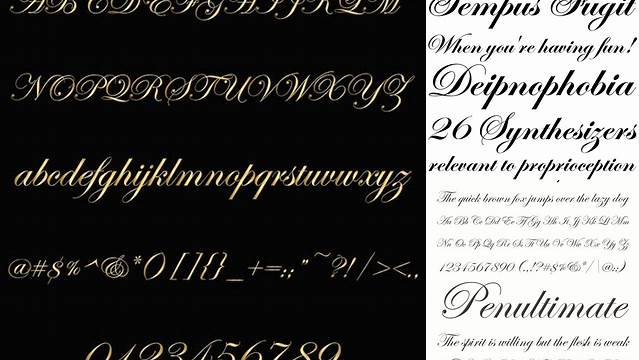
Hey there, font enthusiasts! Ever stumbled upon a font that just screams class, sophistication, and a touch of vintage charm? Well, let me introduce you to the ITC Edwardian Script Std font – a beautiful script font that's been gracing designs for ages. And the best part? You can snag an ITC Edwardian Script Std font free download and infuse your projects with its timeless elegance. In this comprehensive guide, we'll dive deep into everything you need to know about this font, from its history and design characteristics to where you can find that coveted free download. Ready to elevate your design game with a touch of Edwardian flair? Let's get started!
1. Unveiling the Allure of the ITC Edwardian Script Std Font
Alright, guys, let's kick things off by exploring what makes the ITC Edwardian Script Std font so darn special. This font isn't just any script; it's a carefully crafted typeface that evokes the grace and style of the Edwardian era. Imagine flowing, elegant strokes, a touch of flourish, and an overall sense of refinement – that's the essence of this font. The ITC Edwardian Script Std font stands out with its distinctive character, making it perfect for projects where you want to convey a sense of luxury, nostalgia, or classic beauty. Its popularity stems from its versatility; it works like a charm in various design contexts. From wedding invitations to branding materials, logos, and even website headers, this font adds a touch of sophistication that's hard to ignore. The design itself is a testament to the craftsmanship of its creators, capturing the spirit of a bygone era while remaining relevant in today's design landscape. The font's flowing letterforms create a visual harmony that draws the eye and leaves a lasting impression. It's the type of font that elevates a simple design into something truly memorable. The ITC Edwardian Script Std font is more than just a collection of characters; it's a statement, a way to communicate elegance and style. Whether you're a seasoned designer or just starting out, understanding the nuances of this font can significantly enhance your creative endeavors, making your projects stand out from the crowd and leaving a lasting impression on your audience. It's a timeless choice that continues to captivate designers and audiences alike, solidifying its place as a design classic.
2. Diving into the Design: Characteristics and Features
Okay, let's get into the nitty-gritty details, shall we? The ITC Edwardian Script Std font boasts several key design characteristics that make it so unique and appealing. Firstly, you'll notice the elegant, flowing strokes that give it a handwritten feel. This adds a personal touch, making your designs feel more inviting and authentic. The font's curves are graceful, and the letters connect in a way that creates a seamless visual flow. This is perfect for creating a sense of continuity and visual harmony. Furthermore, the ITC Edwardian Script Std font often features a variety of ligatures, which are special characters that combine two or more letters into a single glyph. Ligatures enhance the aesthetic appeal and add a touch of sophistication, providing a more authentic calligraphic appearance. The font also typically includes a range of weights and styles, from regular to bold, allowing you to experiment with different visual effects. This versatility means you can adapt the font to suit various design needs, whether you want a subtle touch or a bolder statement. Another important feature of the ITC Edwardian Script Std font is its readability. While script fonts can sometimes be difficult to read, this font is designed to maintain clarity even at smaller sizes. This makes it ideal for a wide range of applications, from headlines to body text. The carefully considered design ensures that the text remains legible, allowing your message to shine through. From the sweeping strokes to the use of ligatures, every aspect of the ITC Edwardian Script Std font is meticulously crafted to deliver an elegant and memorable aesthetic. These characteristics collectively contribute to the font's timeless appeal and make it a favorite among designers seeking a touch of classic beauty in their projects. Understanding these features will help you use the font effectively and appreciate its unique qualities.
3. The History and Origins of ITC Edwardian Script Std
Let's take a trip down memory lane and explore the ITC Edwardian Script Std font's historical roots. This font, as the name suggests, draws inspiration from the Edwardian era (early 20th century), a period known for its elegance, refinement, and artistic innovation. The font's design reflects the calligraphy styles popular during that time, with a focus on graceful, flowing letterforms that exude sophistication. The ITC Edwardian Script Std font was created by a renowned type foundry, International Typeface Corporation (ITC), and designed by the talented Edward Benguiat. Benguiat's mastery of typography is evident in the font's meticulous details and balanced aesthetics. The font's creation was a nod to classic calligraphy styles, which offered a modern interpretation. The aim was to create a typeface that embodies the spirit of the Edwardian era while remaining adaptable for contemporary design needs. The font quickly gained popularity among designers seeking to add a touch of vintage charm to their projects. Its elegant design and versatility made it a go-to choice for invitations, branding, and various other applications. The ITC Edwardian Script Std font successfully captures the aesthetic of a bygone era, and its continued use in contemporary design testifies to its timeless appeal. The history of this font reflects a desire to connect with the past while embracing the possibilities of the future, and as such, it remains relevant and appreciated by designers and enthusiasts. This historical context adds an extra layer of appreciation for the font, enabling users to understand the care and effort put into its creation. So, the next time you see this font, remember its rich history and the design era that inspired it.
4. Why Designers Love the ITC Edwardian Script Std Font
So, why do designers rave about the ITC Edwardian Script Std font? Well, the reasons are as varied as the designs it graces. First and foremost, it's the sheer elegance and sophistication that this font brings to any project. It elevates the aesthetic instantly, adding a touch of class that's hard to replicate with other typefaces. Its flowing script is incredibly versatile, fitting seamlessly into a wide range of design applications, from formal invitations to website headers and logo designs. Designers value its ability to convey different moods, from classic and romantic to vintage and refined. The font is also appreciated for its versatility. Its various weights and styles allow designers to customize the look and feel of their projects. This flexibility is important when matching the typeface to the specific project and brand guidelines. Furthermore, the ITC Edwardian Script Std font is easy to read. Unlike some elaborate script fonts, this font has a certain clarity that is still legible at various sizes, making it perfect for both headlines and body text. The font offers numerous options for use. The availability of ligatures and alternate characters allows designers to add a special touch, such as fine detail. The font stands out as it makes projects stand out. It also provides a sense of continuity, helping the overall visual harmony of the design. The ITC Edwardian Script Std font has become a staple in any designer's toolbox. It has a great history, and its design characteristics make it one of the most wanted fonts available.
5. Perfect Projects: Where to Use the ITC Edwardian Script Std Font
Now, let's talk about where this stunning font really shines. The ITC Edwardian Script Std font is a versatile beauty, ideal for a wide array of projects that call for a touch of elegance and sophistication. Think wedding invitations, where its flowing script adds a romantic and timeless vibe. It's perfect for setting the tone for a special day, providing a feeling of tradition and luxury. The font also excels in branding and logo design. Businesses looking to project a classic or vintage image often choose this font to add a touch of prestige and professionalism. For example, you might see it used by luxury brands, boutique shops, or businesses that want to evoke a sense of quality and heritage. It's also a great fit for packaging and labels, especially for products that emphasize craftsmanship or a premium experience. The handwritten feel of the font can make a product feel more authentic and appealing. Beyond the stationery and branding, you can find the ITC Edwardian Script Std font in website headers, creating an instant impact and setting the tone for your online presence. Blog headers and social media graphics can also benefit from its elegant touch. From print to digital projects, the ITC Edwardian Script Std font adds a touch of refinement and visual interest. This makes it the perfect solution for anyone looking to create a design that is both beautiful and memorable. It is a versatile font that can transform ordinary designs into extraordinary works of art. Whether you're planning a wedding, starting a business, or simply looking to spruce up your personal projects, this font is a great choice.